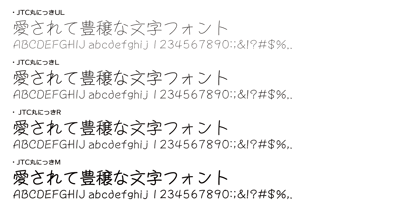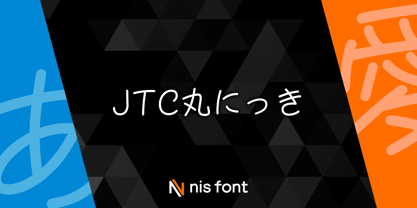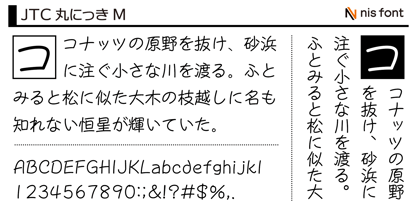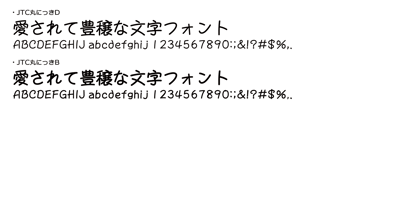
OT-NIS_NKR
The OT-NIS_NKR Font Family was designed by and published by NIS Fonts. OT-NIS_NKR contains 6 styles and family package options. More about this family
OT-NIS_NIK has been reimagined with a rounded Gothic style. Including this product, we have developed six weight variations (UL, L, R, M, D, B) as part of the font family, making the handwritten, gentle, and warm character designs even more versatile and easier to use. Supports the JIS2004 character set.